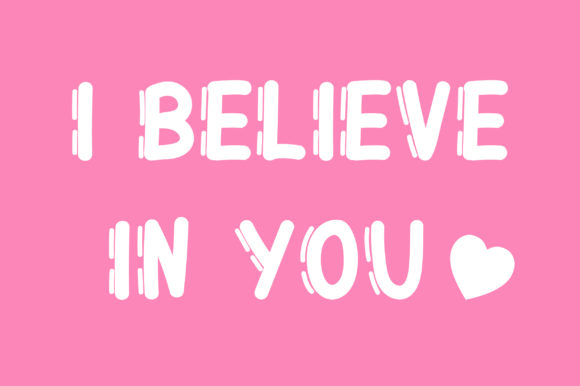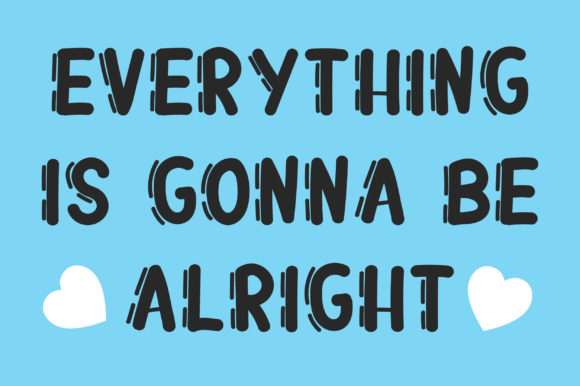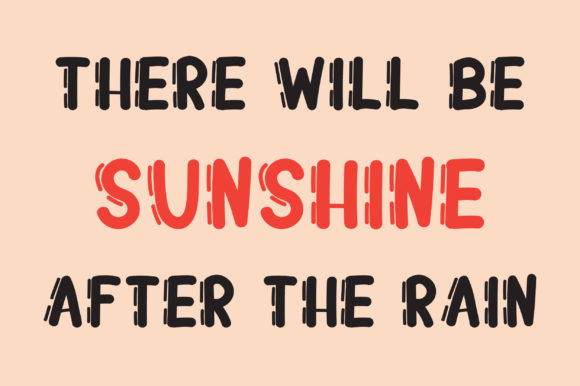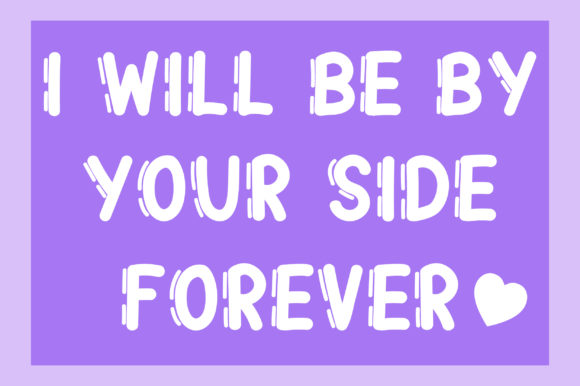
The Power of a Perfect Font: Discovering Cheer Up Font
Have you ever stared at a blank page, wondering how to bring your creative vision to life? We’ve all been there – the blank canvas, the blinking cursor, and the nagging feeling that something’s missing. That’s where the magic of typography comes in, and today, we’re excited to introduce you to a font that will revolutionize the way you approach your next project: the enchanting Cheer Up Font.
This charming display font is more than just a pretty face – it’s a game-changer for designers and creatives alike. With its unique style and playful vibe, Cheer Up Font adds a touch of whimsy to any design, making it the perfect choice for those looking to stand out from the crowd. Whether you’re a seasoned pro or just starting out, this font is sure to inspire and elevate your creative work.
Cheer Up Font Key Features
- Unique Characteristics: Cheer Up Font features a distinctive, hand-drawn style with a mix of rounded and geometric shapes, giving it a playful and modern feel.
- Font Weight: Cheer Up Font is available in 5 different weights, ranging from Light to Bold, allowing designers to choose the perfect weight for their project.
Designer Review: Cheer Up Font
Overall, I’d say the Cheer Up Font has its moments, but it’s not without its flaws. Let’s start with the good stuff: ✨ The font’s playful and quirky vibe is perfect for a variety of projects, from social media graphics to children’s books. The rounded edges and fun characters make it a great choice for designs that need a lighthearted touch.
The font also has a good range of weights and styles, making it easy to customize and match with other design elements. I appreciate the attention to detail in the font’s design, from the tiny details on the characters to the well-thought-out spacing.
- ⚠️ The font may be too playful for more serious or professional designs, where a more formal font is needed.
- ⚠️ The font’s characters can be a bit messy and irregular, which may not be ideal for body text or large blocks of text.
- ⚠️ The font may not be as legible at smaller sizes, which can be a problem for designs that need to be viewed on smaller screens or in print.
Overall, the Cheer Up Font is a fun and quirky addition to any designer’s toolkit. While it may have some limitations, it’s a great choice for projects that need a playful and lighthearted touch. Just be sure to use it wisely and pair it with other design elements that complement its unique personality.
The Cheer Up Font is perfect for creating fun and playful designs, such as:
– Event invitations and flyers
– Children’s book illustrations and design
Remember to use the font in moderation to avoid overwhelming your design. Experiment with different font sizes, colors, and combinations to achieve the desired effect.